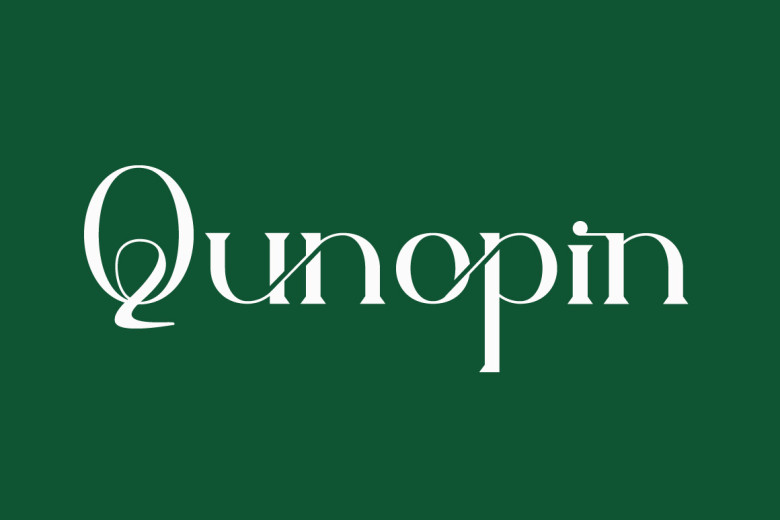
Qunopin Font
Qunopin is an alternate ligature kind of serif font that has both modern and natural style in hopes of becoming an existence hot on the market! We keep the appearance of this font elegant, dignified, enjoyability to read, taste fashionable and attractive is convenient. Qunopin Font is a great choice for beauty brands, magazines, newspapers, books, brand names, branding, brands, quotes, album covers and other projects.
Qunopin Serif Font